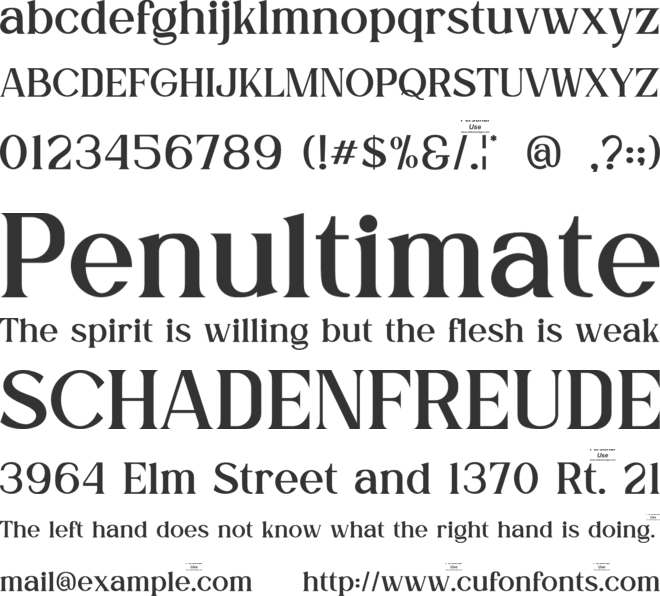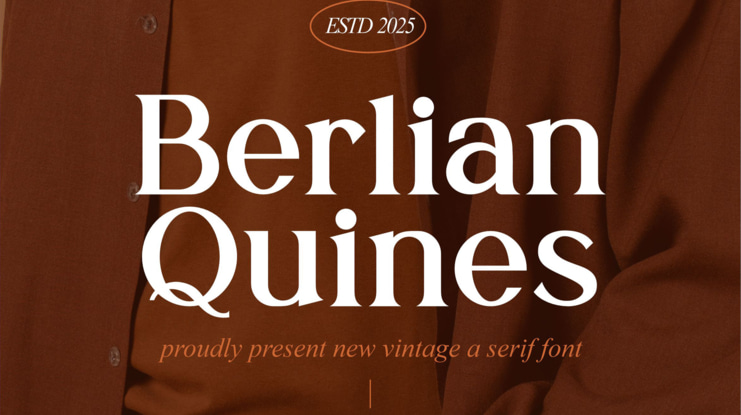
Berlian Quines Font
Introducing Berlian Quines is a classic serif font, trendy, bouncy and cute display font. It has a unique character with wood theme. It is perfect to be combined with invitation card designs, company logos, movie titles, movie names, business cards, book titles, brand names and various other designs.
Berlian Quines font preview